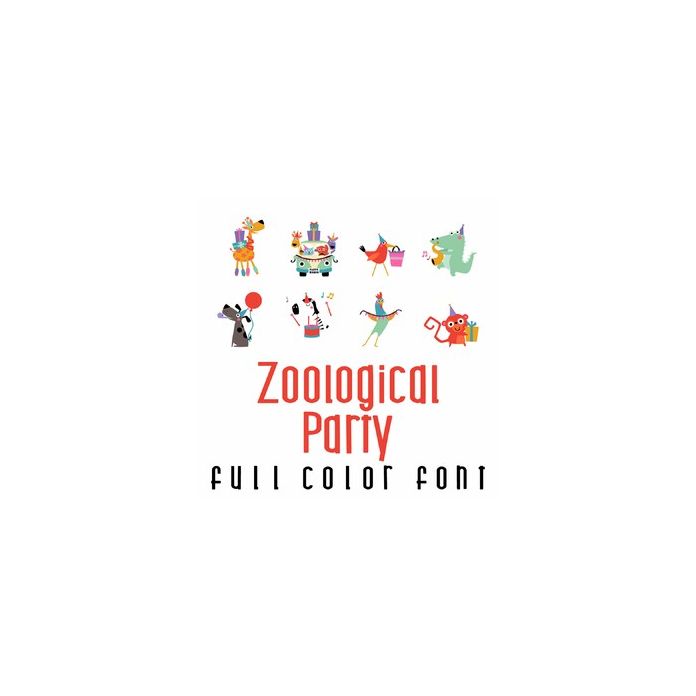
This adorable full color doodlebat font features our fun Zoological animals ready to party! Perfect for cards, crafts, gifts, decor, scrap book pages, planner stickers and more!